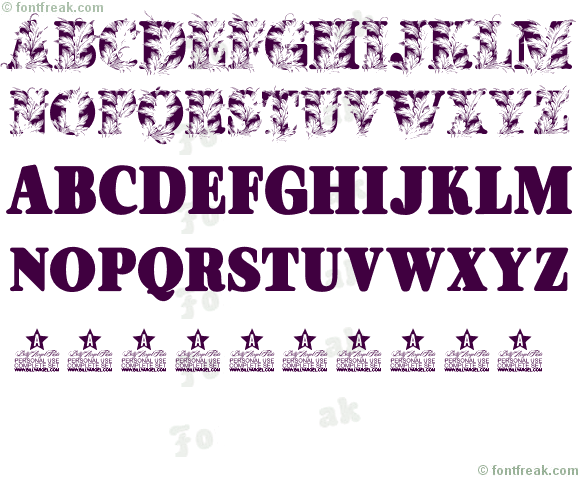
MONKEYSAFARISAFEDEMO-Bold
About MONKEYSAFARISAFEDEMO-Bold
MONKEYSAFARISAFEDEMO-Bold, designed by Billy Argel Fonts, is a captivating display font that exudes a playful and adventurous spirit. As a decorative style, this font is characterized by its bold, eye-catching strokes that are infused with a unique, organic flair. The design features a distinct texture and character that resembles the wild, untamed essence of nature, making it a perfect choice for creative projects that aim to evoke a sense of fun and exploration.
The visual characteristics of MONKEYSAFARISAFEDEMO-Bold include a strong stroke weight that maintains clarity and presence, even at larger sizes. The font has an irregular, somewhat whimsical appearance, with decorative elements that suggest movement and energy. This makes it stand out in various applications, offering a sense of personality that is hard to ignore. The spacing is well-balanced, ensuring readability while retaining its artistic qualities.
Ideal use cases for MONKEYSAFARISAFEDEMO-Bold include eye-catching movie posters, vibrant children's book covers, dynamic event flyers, and engaging restaurant menus that aim to create a lively dining atmosphere. Graphic designers and content creators will find it particularly appealing for projects that require a touch of creativity and flair, while small business owners looking to infuse their branding with character will also benefit from its unique style.